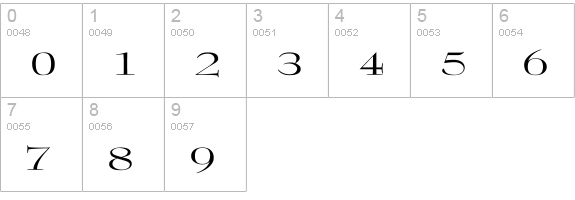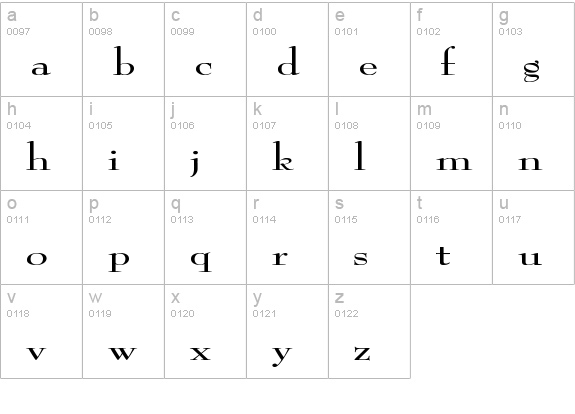
ReedFont Ex Font Details
ReedFont Ex is a stunning and versatile font that will elevate any design project. With its clean and modern lines, this font is perfect for both professional and creative endeavors. Whether you're designing a logo, creating a website, or crafting eye-catching social media graphics, ReedFont Ex will make your work stand out. What sets ReedFont Ex apart is not only its impeccable design, but also the fact that it is free. That's right, this incredible font is freely available to download at FontsMarket.com. Imagine having access to such a high-quality font without having to spend a dime! It's a dream come true for designers and typographers everywhere. ReedFont Ex boasts a vast character set, including uppercase and lowercase letters, numbers, symbols, and punctuation marks. The letters are meticulously crafted to ensure legibility and visual harmony, making it a pleasure to read and work with. The versatility of ReedFont Ex is another reason why it's a must-have font in your collection. It adapts effortlessly to various design styles and can be used for a wide range of projects. Whether you're going for a sleek and modern look or a more playful and whimsical vibe, this font has got you covered. In addition to its aesthetic appeal, ReedFont Ex is also incredibly easy to use. It is compatible with all major design software and can be effortlessly incorporated into your projects. The font's smooth curves and clean lines ensure that it looks great at any size, whether it's used for headings, body text, or even small captions. Don't miss out on the opportunity to enhance your design work with ReedFont Ex. Download this exceptional font for free at FontsMarket.com and let your creativity soar. With ReedFont Ex in your toolkit, your designs will truly shine.